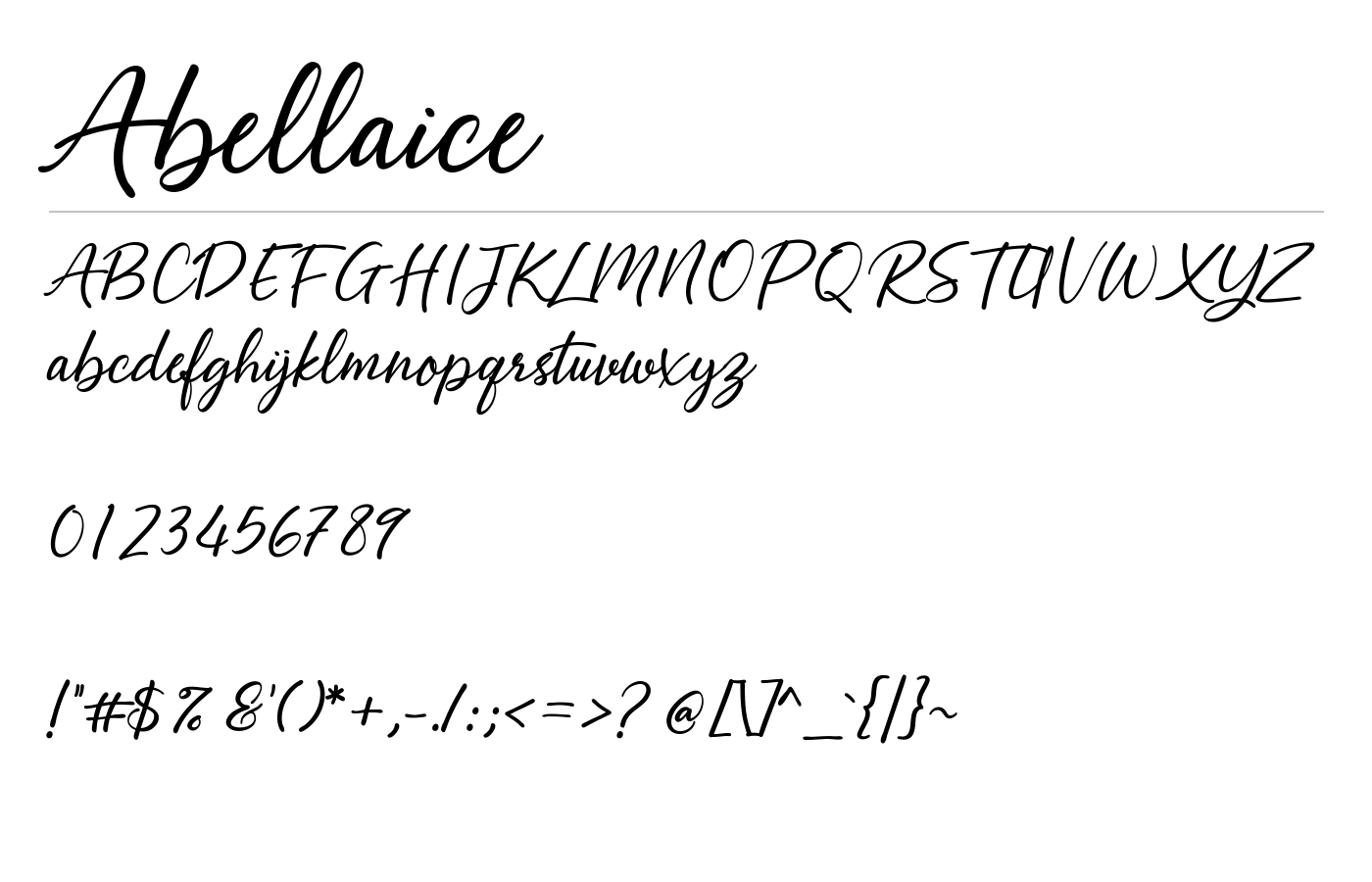
Abellaice is a stylish script font with elegant, flowing strokes that give it a friendly yet sophisticated feel. Its clean and slightly casual handwritten style makes it perfect for branding, invitations, and creative projects where a personal touch is desired. This font works especially well in logos and headlines, adding charm and warmth without sacrificing readability.
Abellaice Font
About Abellaice Font
| Font family | Abellaice Font |
| Designer | Rinaldo Hasibuan |
| Trademark | Letterhanna Type Foundry |